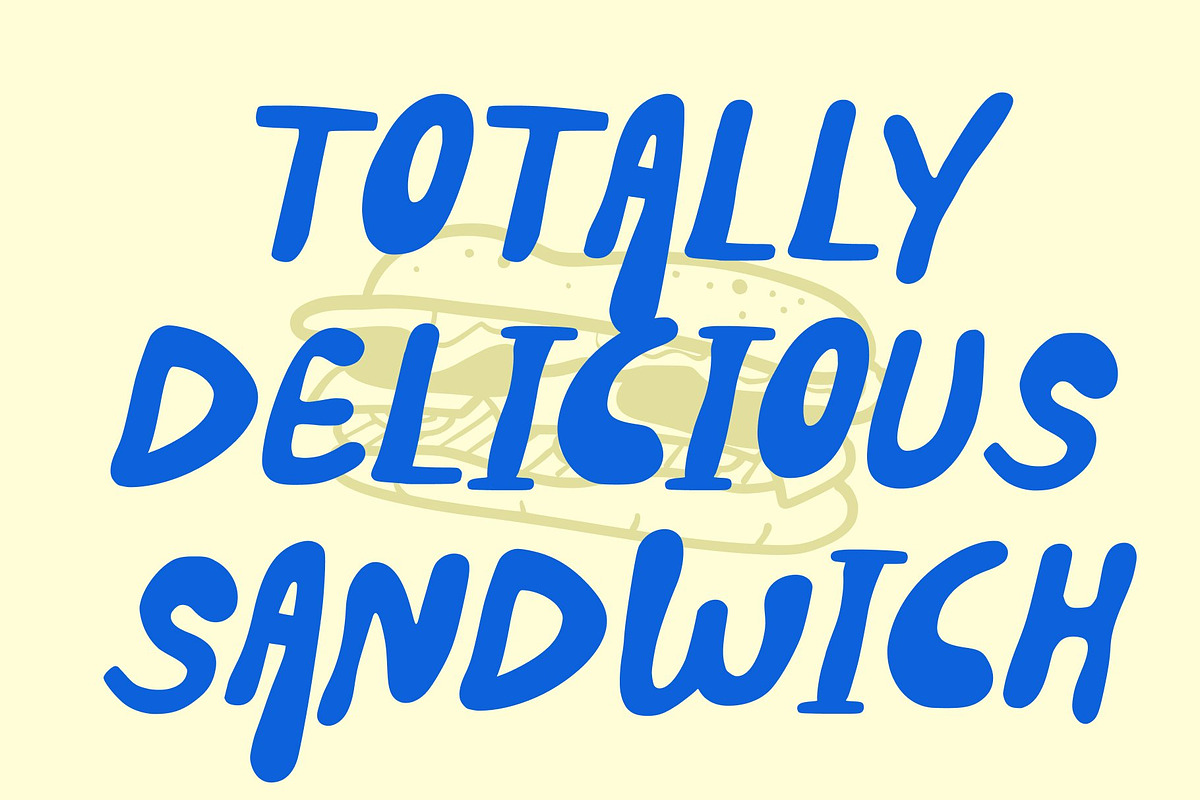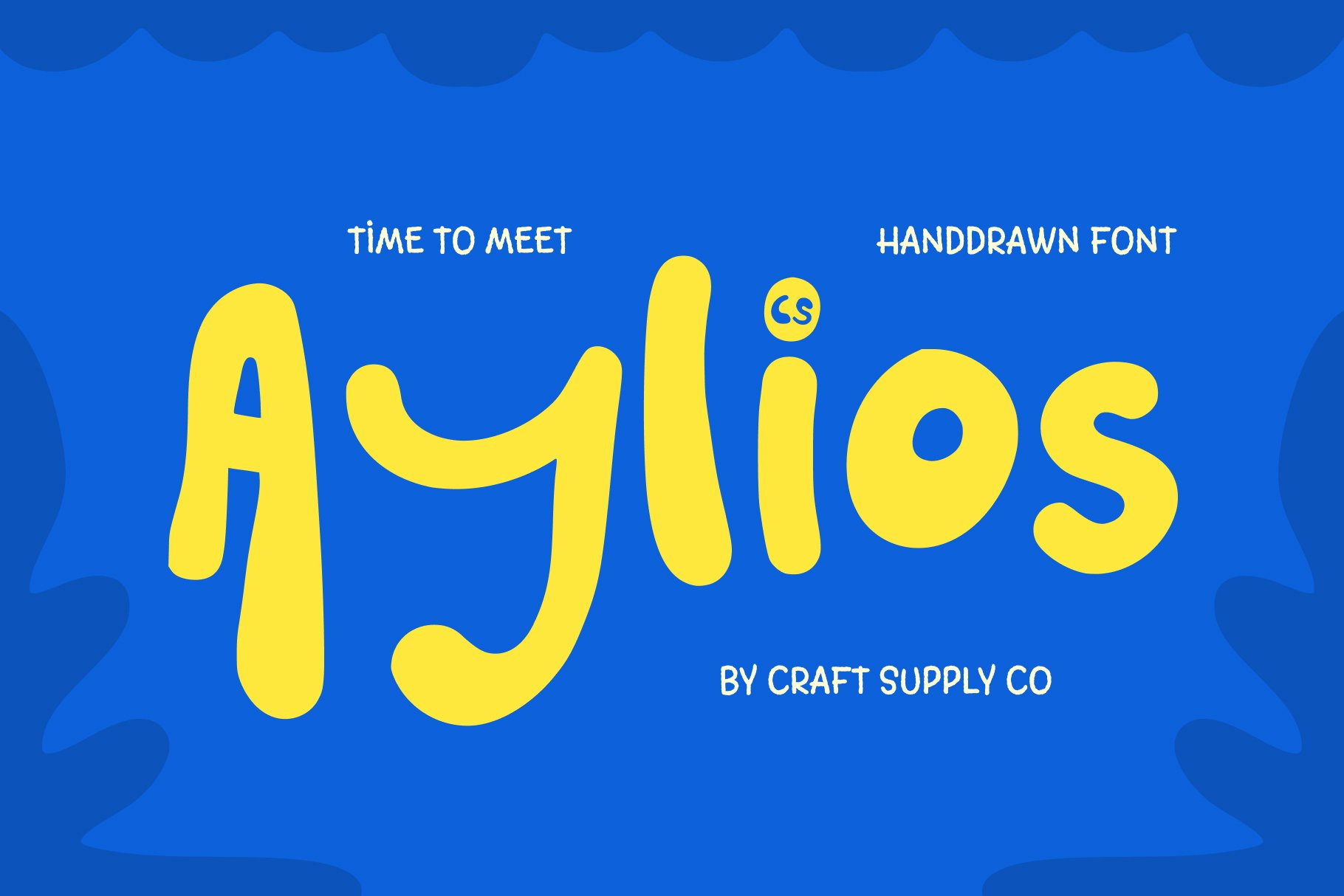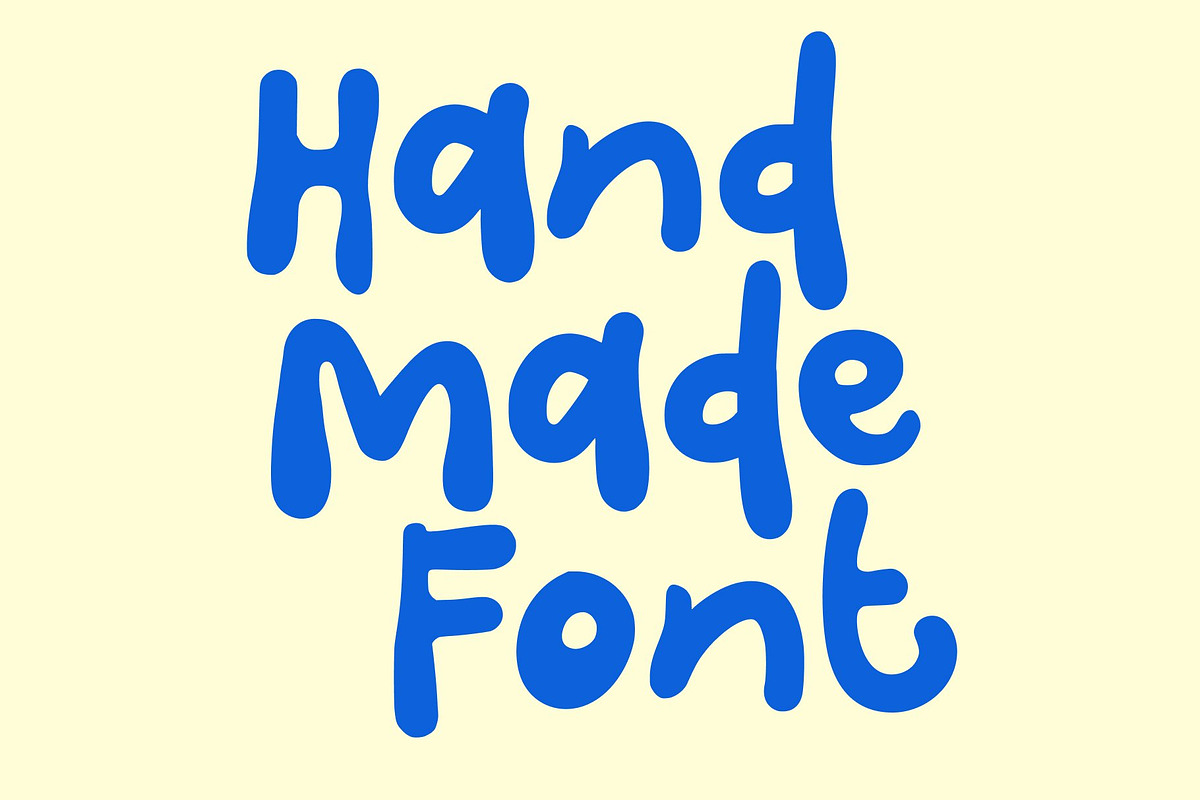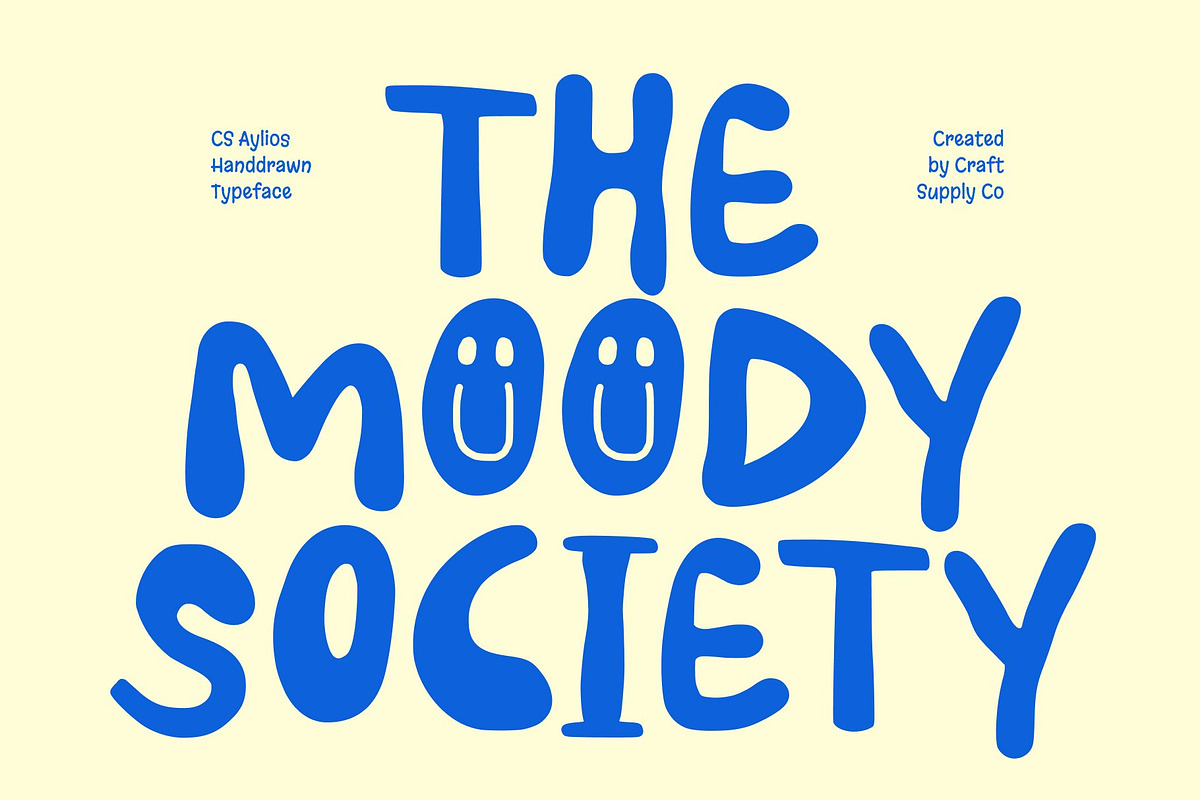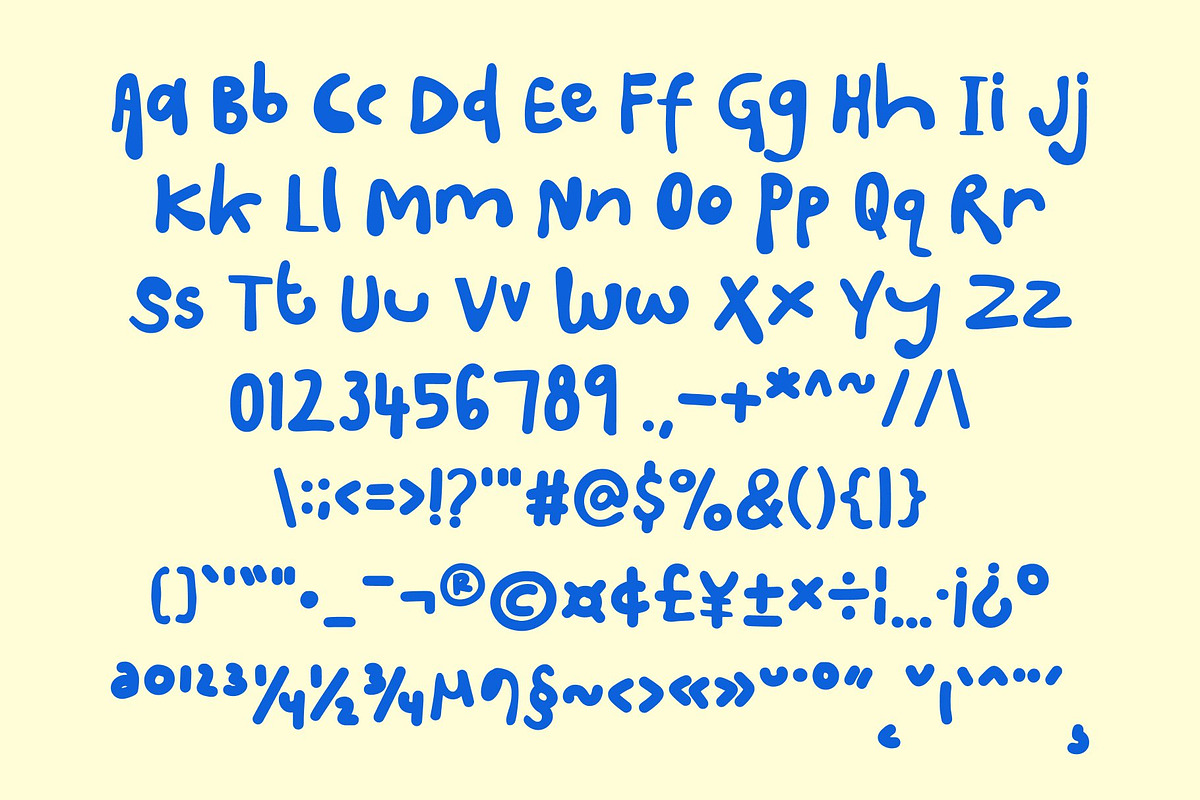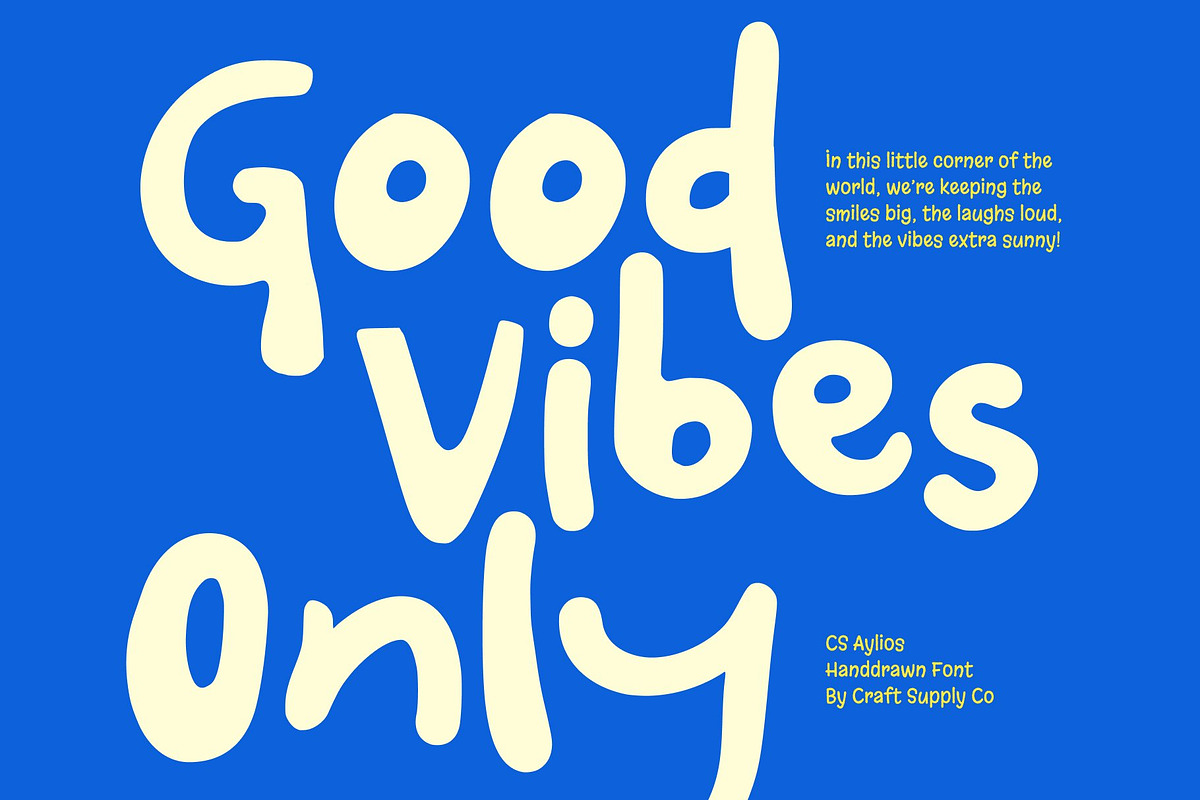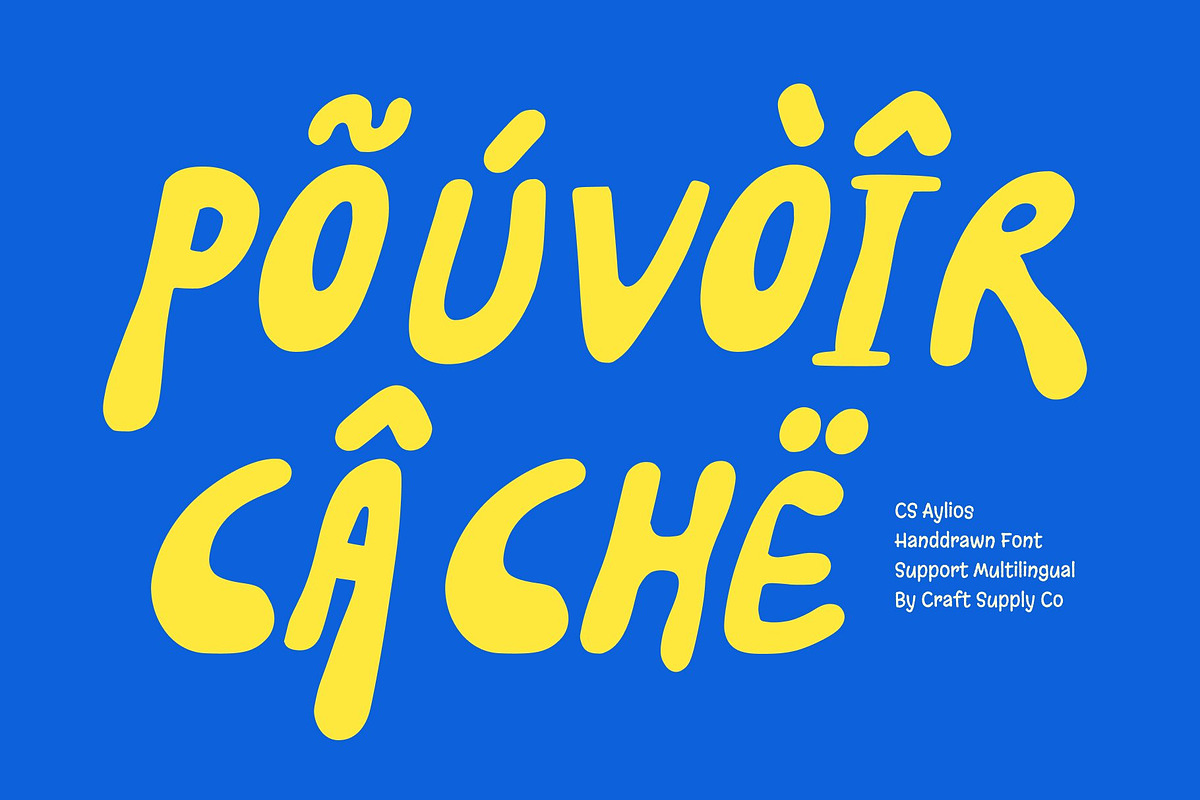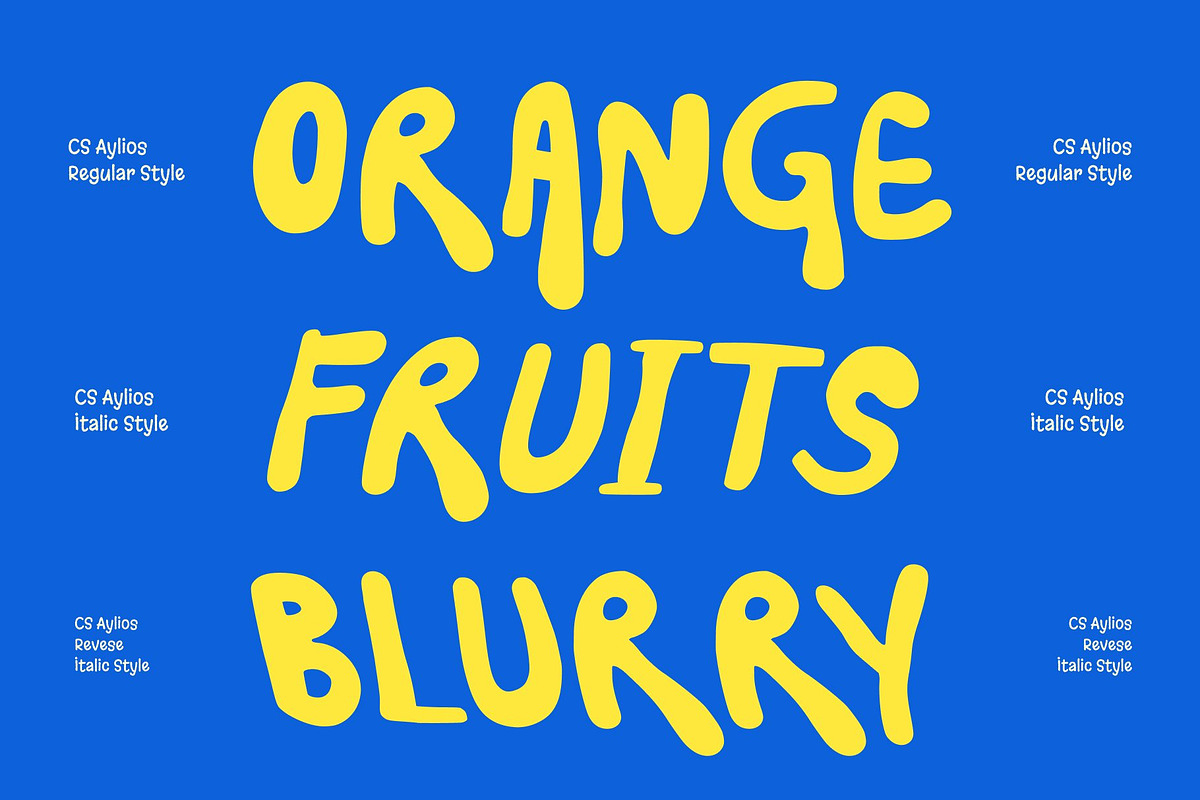
CS Aylios – Hand Drawn Font
CS Aylios – Funky Hand-Drawn Display Font with Sweet Groovy Charm
Playful Groovy Shapes with Decorative Curves This is a hand-drawn display font bursting with groovy, energetic personality. Each letter is shaped with bold curves and playful forms inspired by the smooth, swirling motion of sweet cream. Its expressive structure gives the font a joyful rhythm, perfect for designers looking to bring fun, color, and creativity into their work.
Sweet Cream Inspired Curves for Funky Visual Appeal The decorative curves in this font bring a creamy, indulgent aesthetic that mimics soft swirls and flowing shapes. This unique inspiration gives the font a delightful balance between modern playfulness. Its funky, fluid forms make it instantly eye-catching, giving your designs a refreshing burst of energy and personality.
- CS Aylios Regular
- CS Aylios Italic
- CS Aylios Reverse Italic